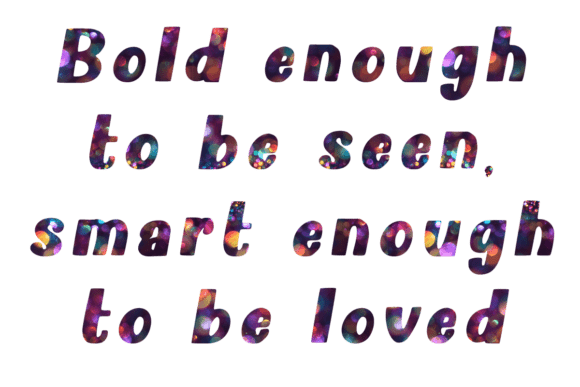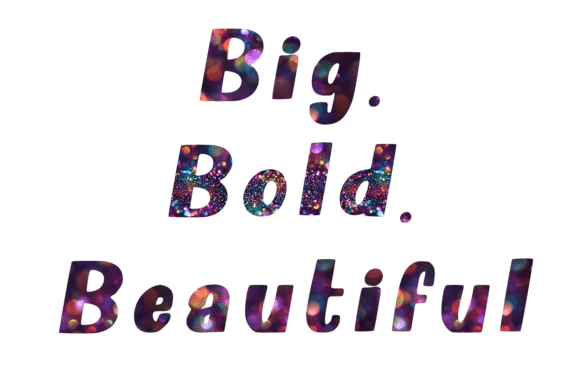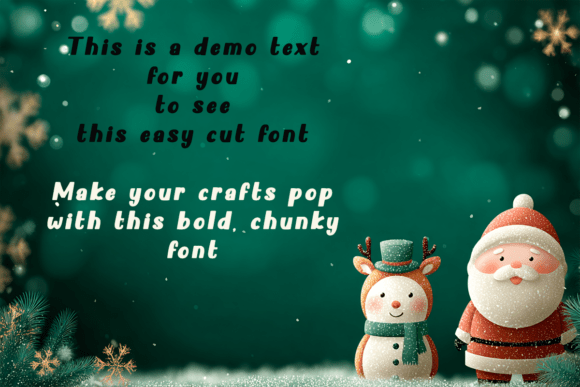
Introduction to Easy Cut Font
Bold & Chunky Font for Vinyl, HTV & Craft Projects Make your crafts pop with this bold, chunky font.
Perfectly designed for vinyl cutting, HTV projects, and print-on-demand creations, its thick letterforms are easy to cut on both thin and thick materials Ideal for T-shirts, mugs, stickers, paper crafts, and home decor, this display font also works beautifully with patterns, textures, and inline designs, letting you create unique, eye-catching letters in seconds.
Key Features of Easy Cut Font
Why Choose Easy Cut Font?